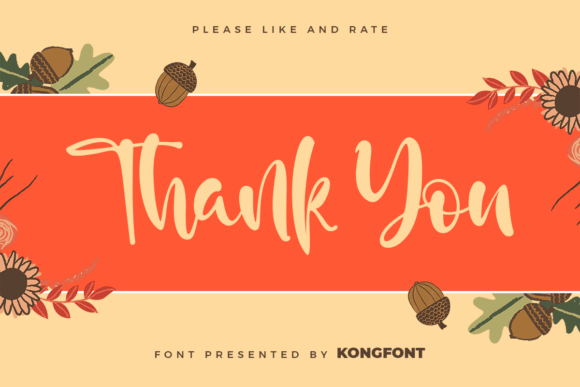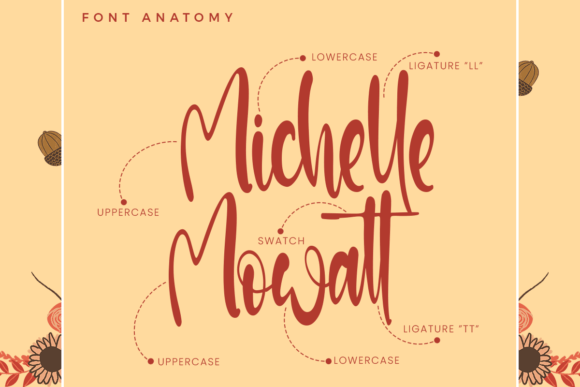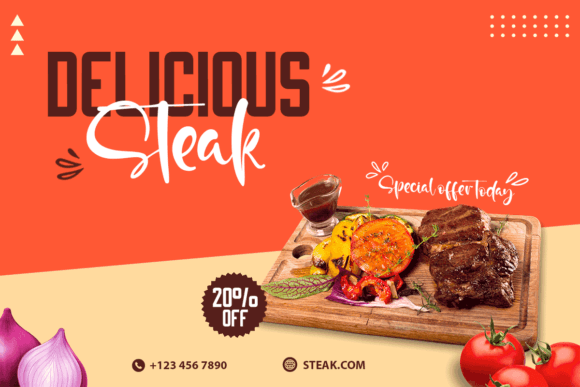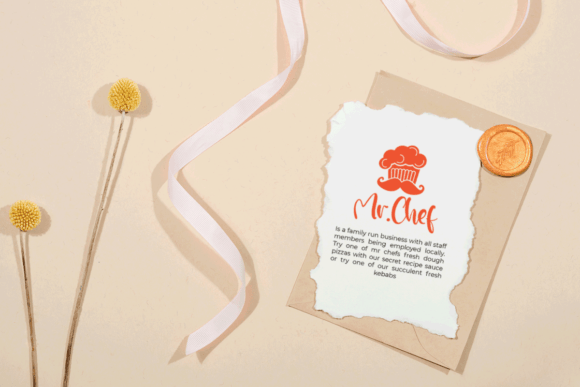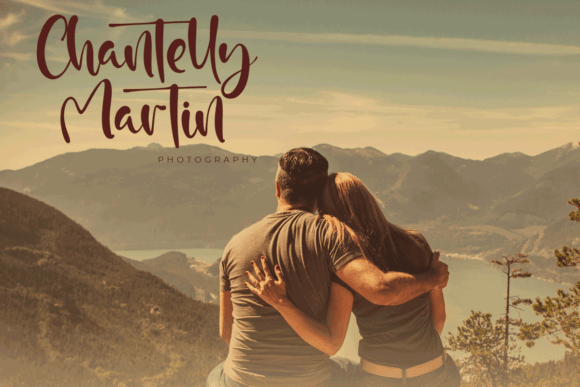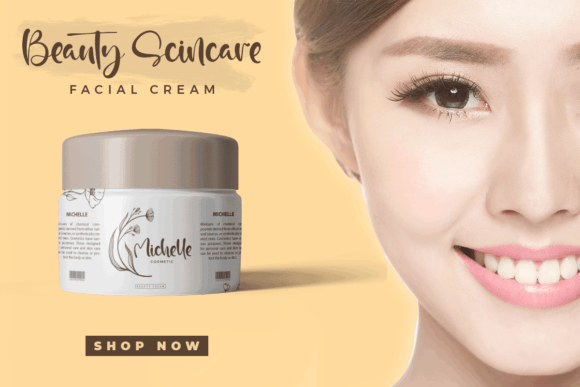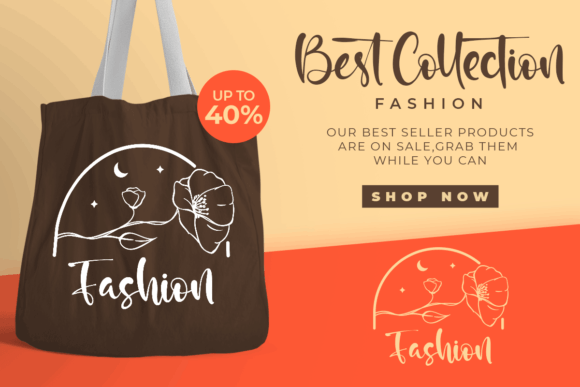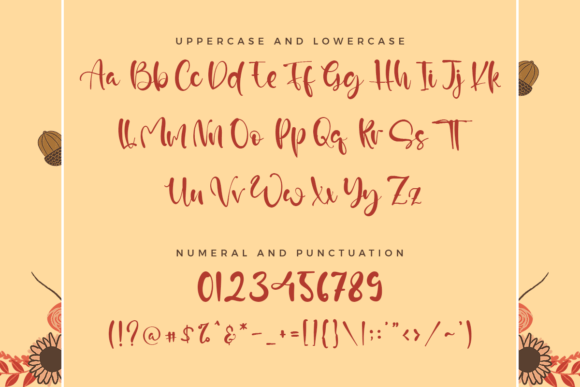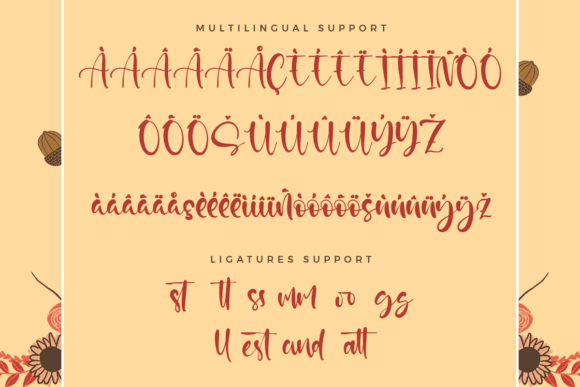
Jacqualine Font
About Jacqualine Font
“Jacqueline” is introduced as a fresh and beautiful handwritten font, created to infuse a more personal touch into your designs. With every letter crafted to possess a unique and beautiful touch, Jacqueline aims to breathe life into your creative projects, adding a sense of individuality and charm. Notably, this font is PUA encoded, facilitating easy access to its diverse set of amazing glyphs and ligatures.
The handwritten quality of Jacqueline is designed to bring a genuine and human aspect to your designs. Each letter carries the distinctive touch of handcraftsmanship, creating an inviting and warm visual atmosphere. Whether you’re working on invitations, quotes, or any other creative project, Jacqueline adds a personal and expressive element.
The uniqueness of each letter in Jacqueline contributes to the overall charm of the font. This variation ensures that your designs maintain a dynamic and handcrafted feel, avoiding the uniformity often associated with digital fonts. It’s this individuality that allows Jacqueline to stand out and make your designs come alive with character and personality.
The inclusion of PUA encoding is a practical feature that enhances user accessibility. With this encoding, designers can easily access the font’s amazing glyphs and ligatures, facilitating a seamless and intuitive design process. This ensures that users can explore the full range of creative possibilities that Jacqueline offers.
In summary, Jacqueline is more than just a font; it’s a creative tool designed to bring a personal and unique touch to your designs. With its handwritten charm, individual letter variations, and PUA encoding for accessibility, Jacqueline stands ready to elevate your creative projects, making them more expressive, lively, and memorable.